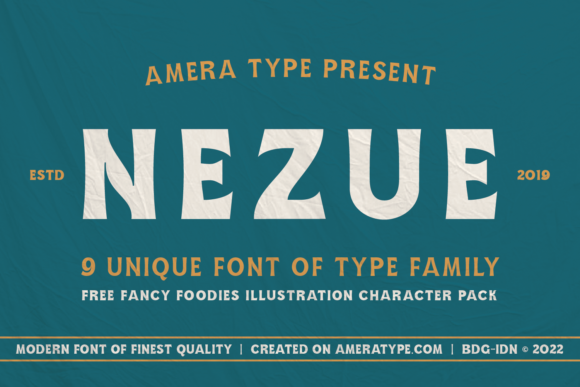
Introducing Nezue Font - The Ultimate Serif for Your Creative Endeavors
Prepare to be captivated by Nezue Font, a serif font that exudes vintage charm and a touch of modern elegance. Its remarkable design is a testament to the creative genius of amera.type, a renowned font foundry known for their impeccable craftsmanship. Nezue Font is the perfect companion for those seeking to create captivating designs that leave a lasting impression.
From logos that command attention to t-shirt designs that spark conversations, Nezue Font seamlessly adapts to your creative vision. Its versatility extends to an array of applications, including branding projects, creative products, and endless other possibilities. Unleash your imagination and let Nezue Font elevate your designs to new heights.
Immerse yourself in the enchanting world of Nezue Font, where classic meets contemporary in perfect harmony. Its meticulously crafted characters exude a timeless charm, while its modern aesthetic ensures that your designs remain relevant and engaging. Whether you're a seasoned designer or just starting your creative journey, Nezue Font is the perfect choice for those who appreciate the beauty and power of typography.
Elevate Your Yard Signs with Nezue Font: A Match Made in Design Heaven
For those seeking the perfect font to create eye-catching yard signs that make a statement, Nezue Font is your ultimate solution. Its bold and distinctive characters ensure that your message is seen and remembered. Whether you're promoting a business, announcing an event, or simply expressing your creativity, Nezue Font will transform your yard signs into captivating masterpieces.
With Nezue Font as your design partner, you'll create yard signs that not only inform but also inspire. Its vintage charm adds a touch of nostalgia, while its modern appeal ensures that your message resonates with today's audience. Make a lasting impression and turn your yard signs into conversation starters - choose Nezue Font and let your creativity shine.
Unlock the Creative Potential Within You: Embrace Nezue Font Today
Nezue Font is more than just a font; it's an invitation to unleash your creative potential and embark on a journey of self-expression. With its timeless beauty and versatile nature, Nezue Font empowers you to create designs that reflect your unique style and vision. Don't settle for ordinary - choose Nezue Font and ignite the creative spark within you.
Experience the transformative power of Nezue Font and see your designs come to life with unparalleled elegance and sophistication. Its vintage-inspired charm and modern edge make it the perfect choice for those who appreciate the finer things in life. Embrace Nezue Font today and embark on a creative journey that will leave you inspired and fulfilled.